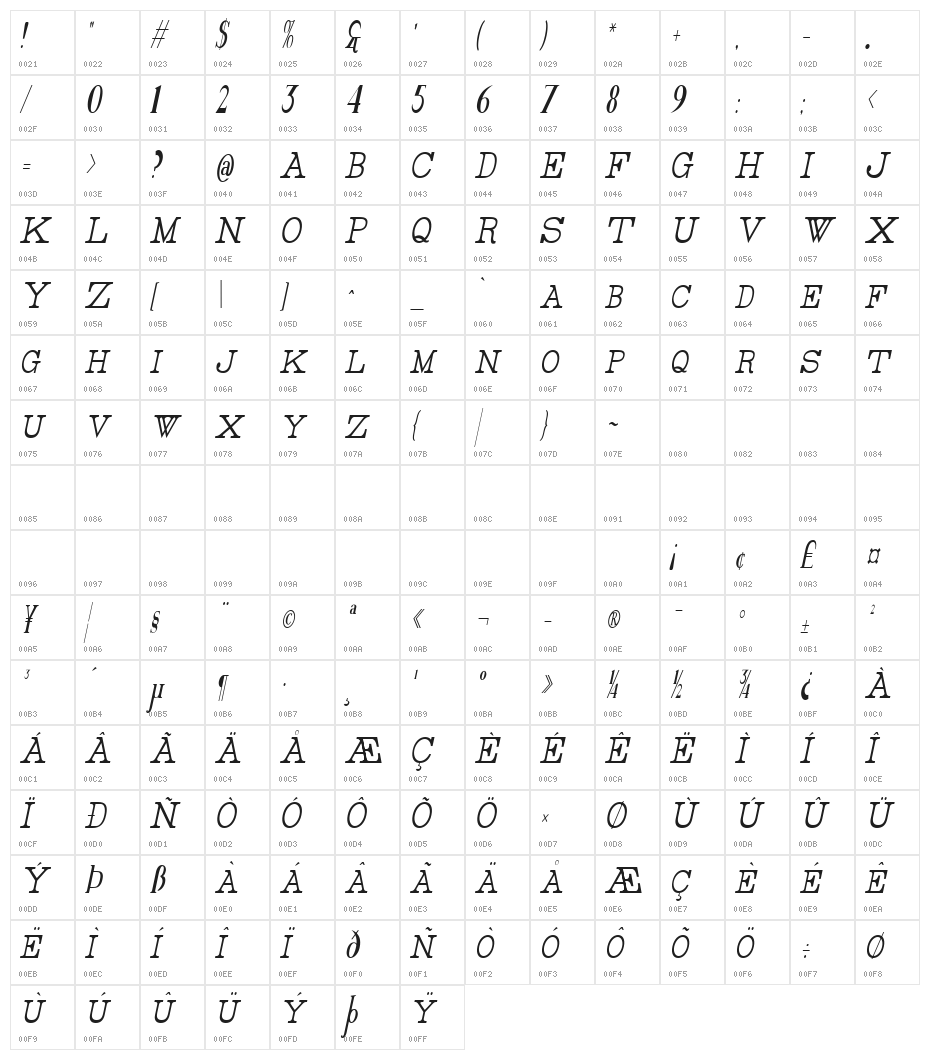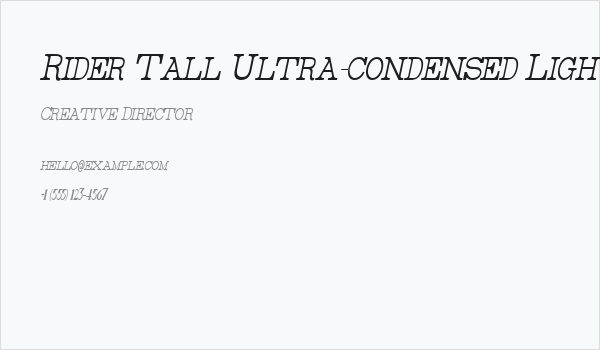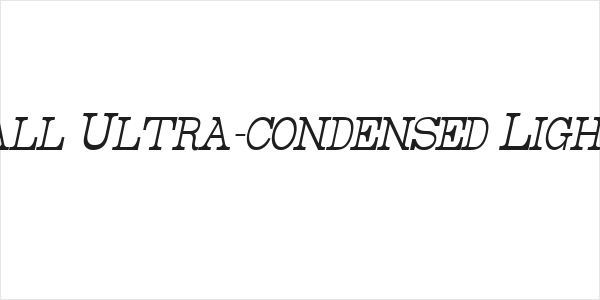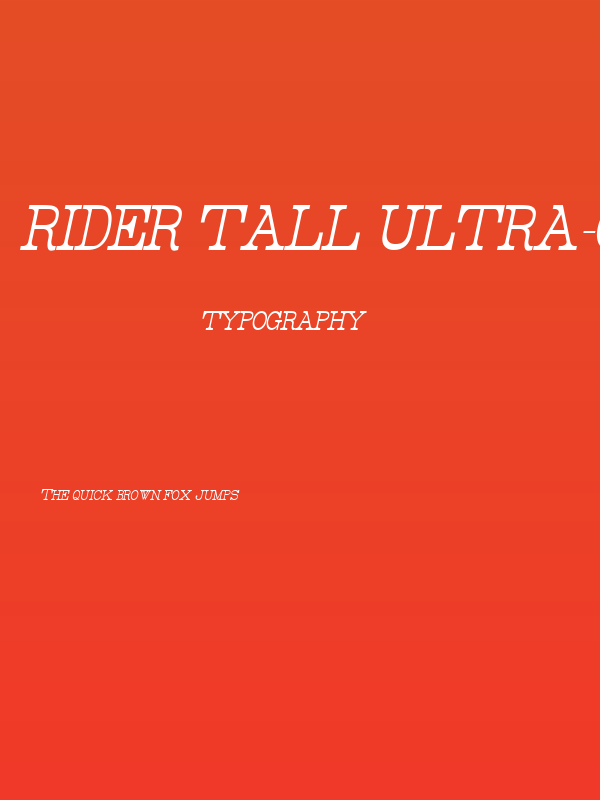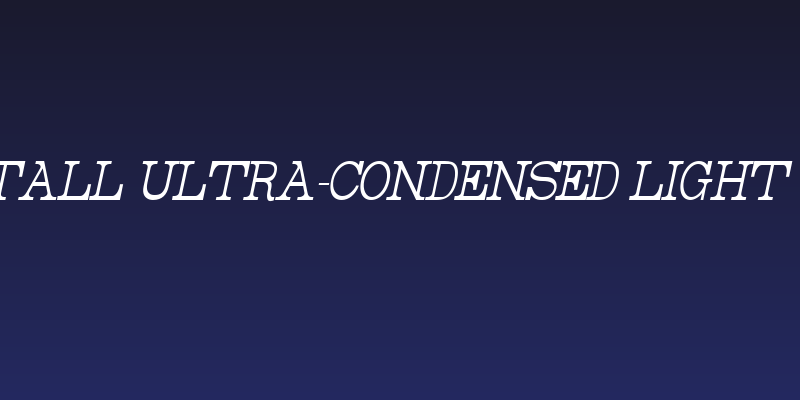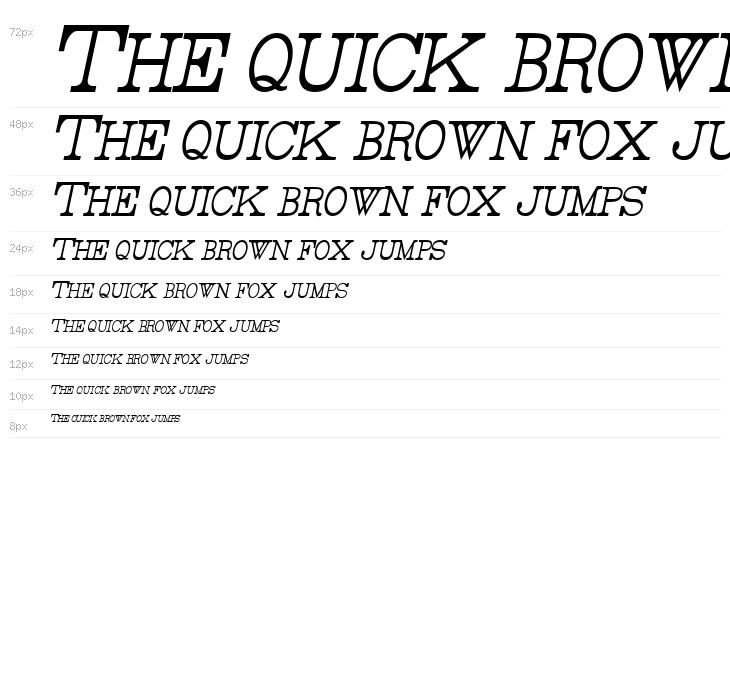
Rider Tall Ultra-condensed Light Italic Font
Rider Tall Ultra-condensed Light Italic Description
This font features an ultra-condensed and tall design, characterized by its elegant and elongated letterforms. The italic style adds a dynamic and sophisticated touch, making it suitable for modern and stylish applications. The light weight of the strokes contributes to a sleek and refined appearance, while the condensed width ensures a compact and efficient use of space. The font maintains a medium contrast between thick and thin strokes, enhancing readability while preserving its distinctive aesthetic. Its overall style is modern and chic, ideal for projects that require a touch of elegance and sophistication.
| Use Case | Headlines, Logos, Editorials |
| Proposed Projects | Ideal for fashion magazines, luxury branding, elegant invitations, and modern editorial layouts. |